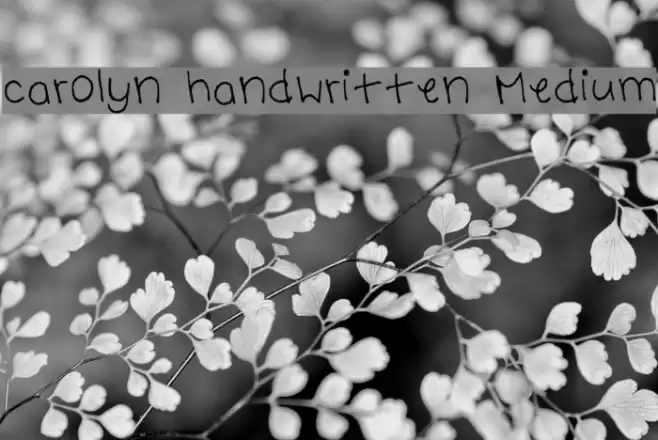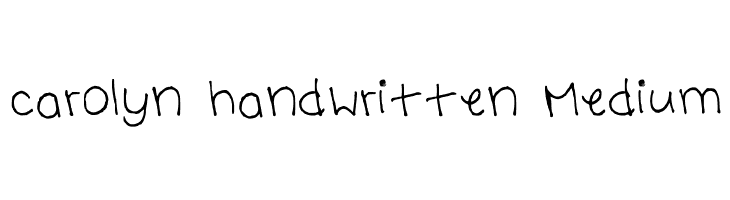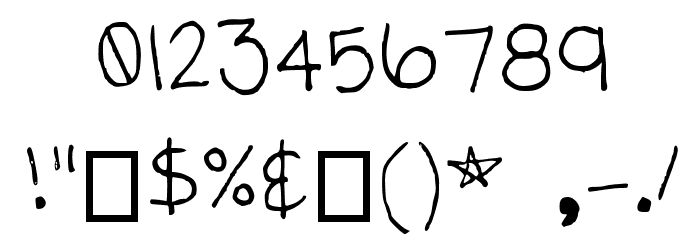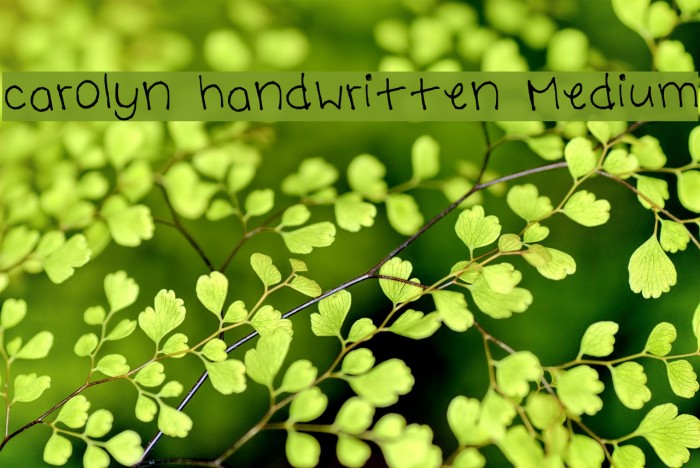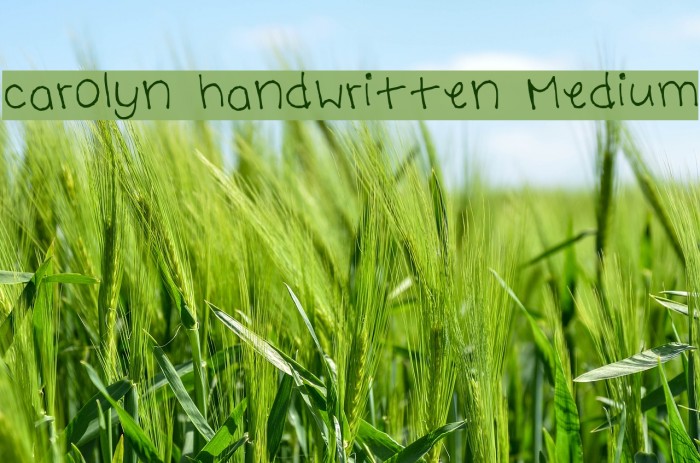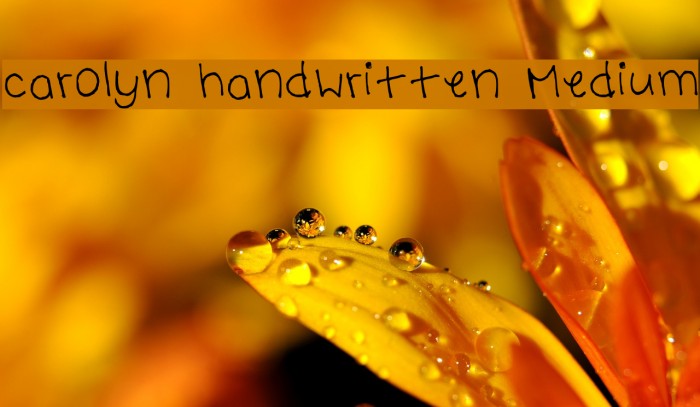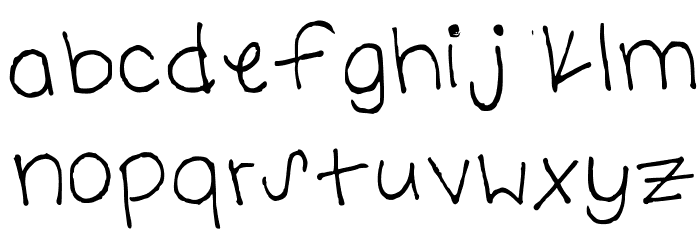
carolyn handwritten Medium Font
carolyn handwritten Medium Description
This font features a playful and casual handwritten style, characterized by its irregular strokes and slightly uneven baseline, which adds a personal and informal touch. The letters are rounded with a consistent medium weight, giving it a friendly and approachable appearance. The uppercase and lowercase letters maintain a coherent style, with the lowercase letters slightly smaller and more compact. The numerals and special characters follow the same handwritten aesthetic, ensuring uniformity across all glyphs. This font is ideal for projects that require a personal or whimsical feel, such as greeting cards, invitations, or children's book illustrations.
A playful handwritten font with medium weight and rounded, irregular strokes from Uncategorized fonts.
- Proposed Projects: Ideal for greeting cards, invitations, children's books, and casual branding.
- Overall Style: Casual, Playful
- Use Case: Headlines, Logos, Informal Text